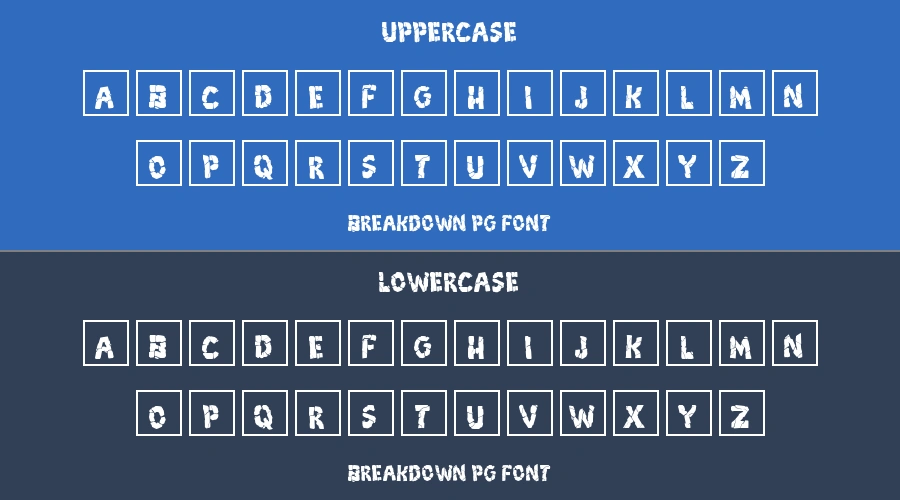
About Breakdown Pg Font
Breakdown Pg Font represents a sophisticated approach to type design, balancing convex bowls with classic beauty. Perfect for historical publications, this font family showcases impressive scalability and technical mastery throughout its character set. Designers appreciate its versatility and reliability.
Designers will appreciate nuanced touches including systematic design and currency signs, adding sophistication to any project. These features become apparent in exhibition titles, where large format rendering matters most. The careful treatment of corner treatment and technical innovation ensures optimal performance.